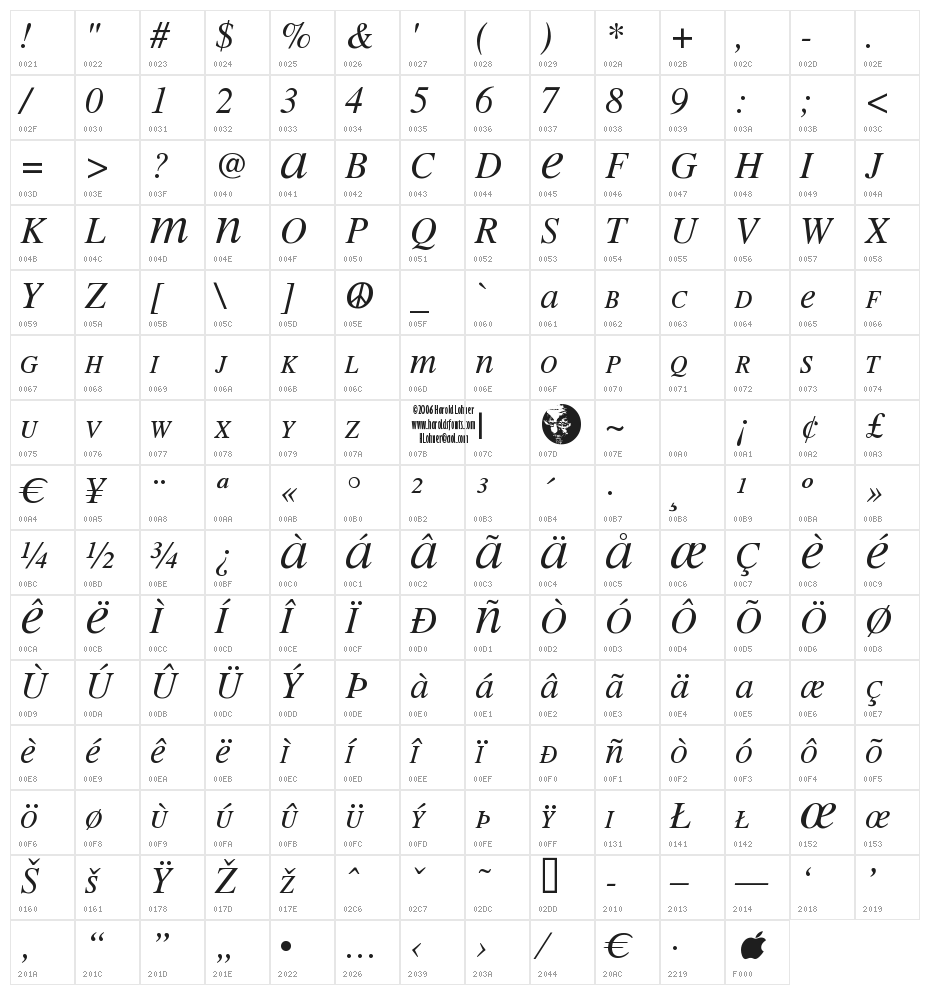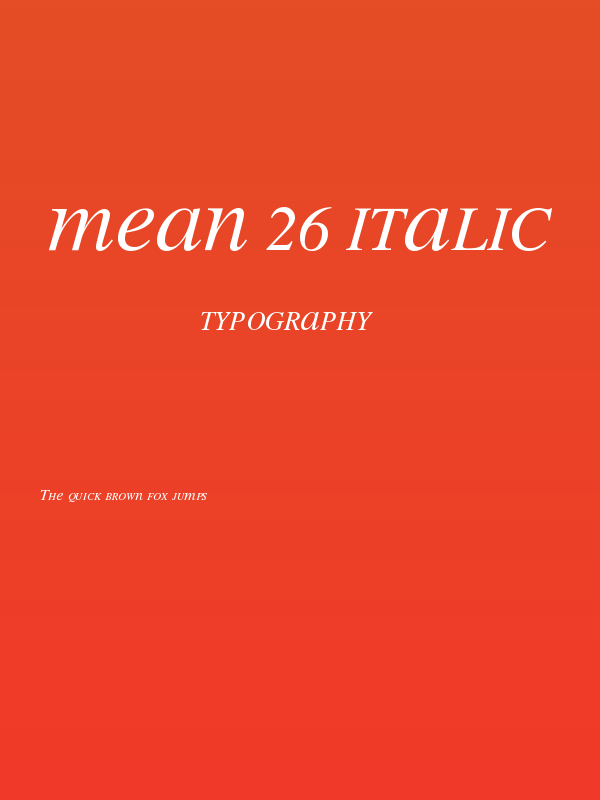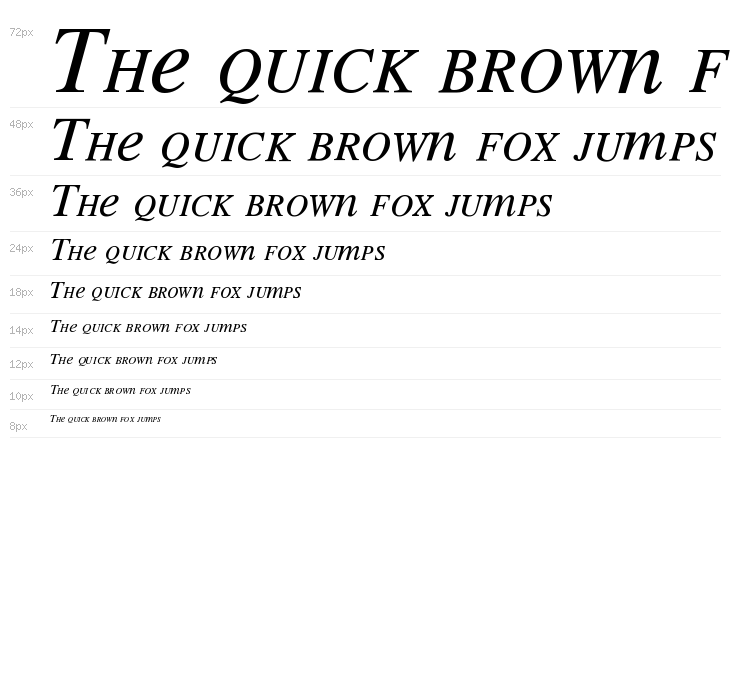
MEAN 26 Italic Font
MEAN 26 Italic Description
This font exhibits a classic and elegant italic style, characterized by its smooth, flowing lines and moderate contrast between thick and thin strokes. The serifs are pronounced yet refined, adding a touch of sophistication to the overall appearance. The characters are slightly condensed, which enhances the graceful, slanted nature of the typeface. The numerals and special characters maintain the same elegant style, ensuring consistency across all text elements. This font is well-suited for applications that require a touch of formality and elegance, such as invitations, formal documents, or branding materials.
| Proposed Projects | Ideal for wedding invitations, formal documents, branding materials, and elegant packaging. |